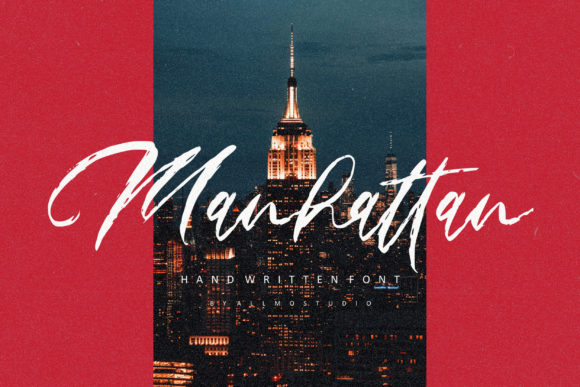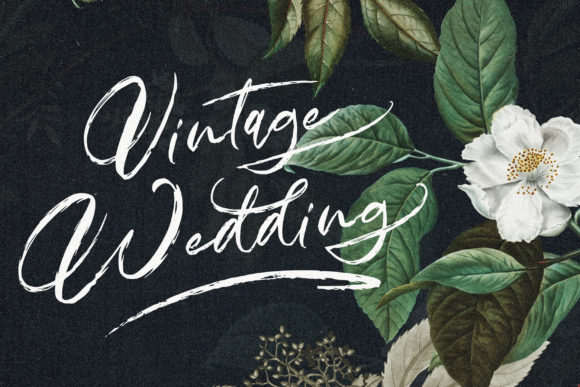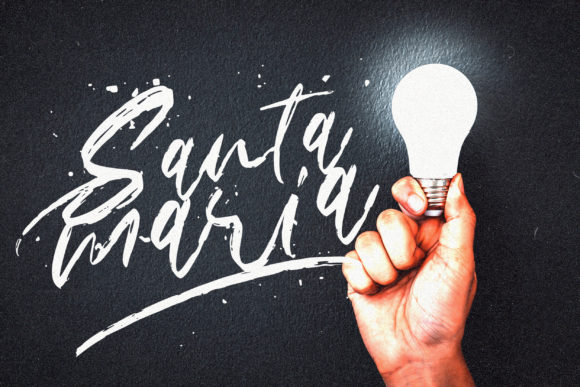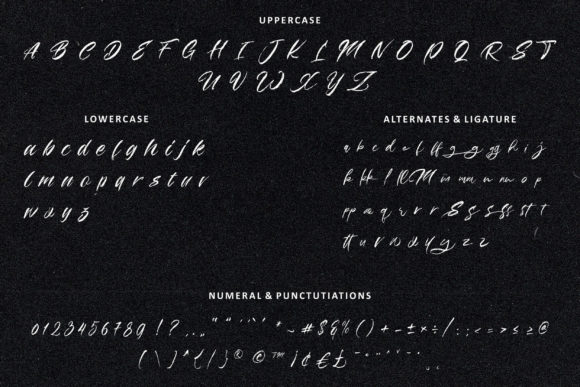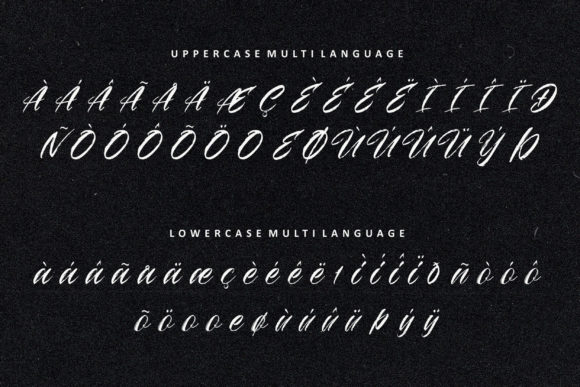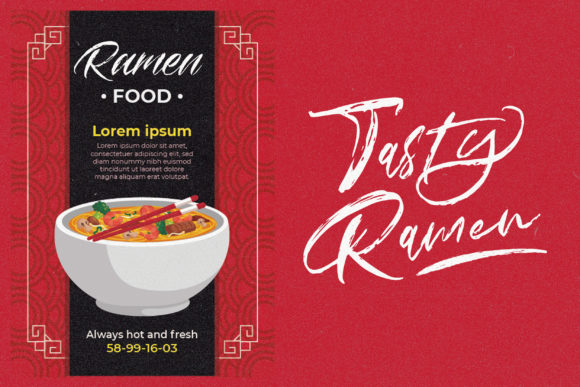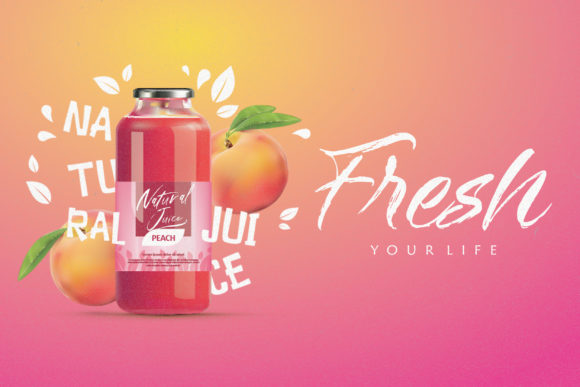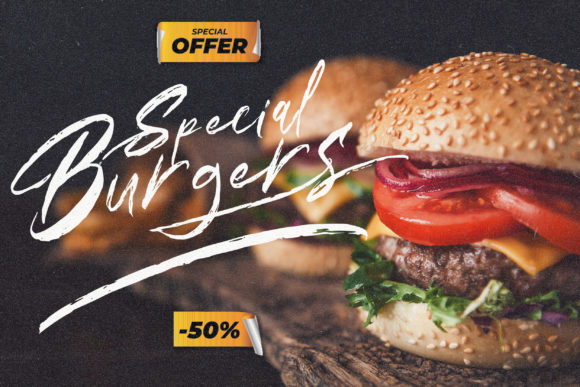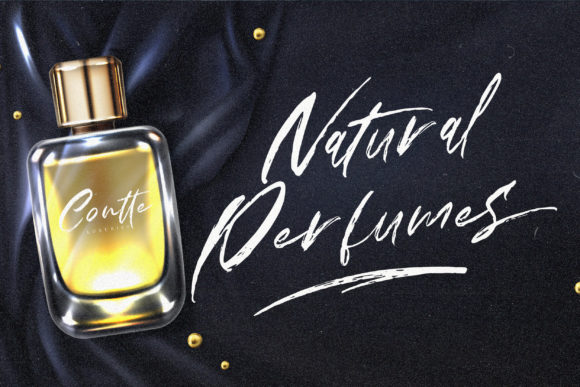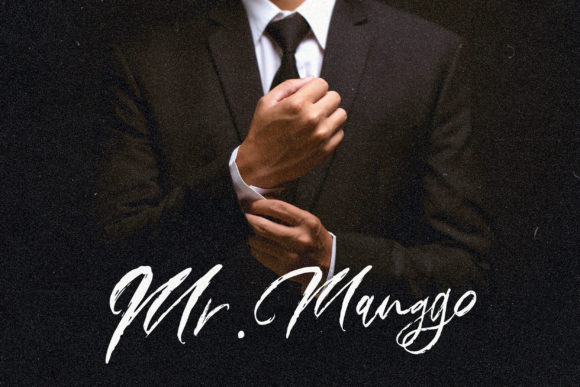
Manhattan Font
About Manhattan Font
Manhattan is a stylish and fresh handwritten font. It is PUA encoded which means you can access all of the glyphs and swashes with ease! It features a varying baseline, smooth lines, gorgeous glyphs and stunning alternates. Fall in love with its incredibly versatile style and use it to create spectacular designs!